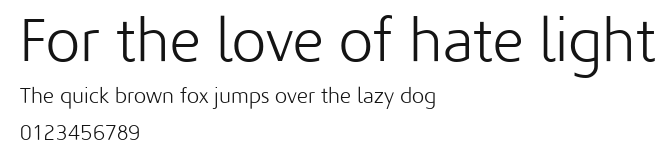
For the love of hate light Preview
• Font Name: For the love of hate light
• Font Style: Light
• Full Font Name: For the love of hate light
About For the love of hate light.ttf
For the love of hate light.ttf is a modern, elegant sans-serif font designed for ultimate readability and visual harmony. Perfect for branding, headlines, web design, and print materials.